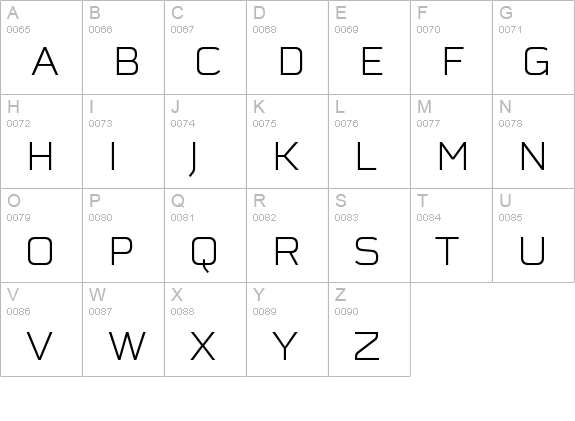
Schwager Sans Light Font Details
Schwager Sans Light is a refined, elegant variant in the Schwager typeface family \xE2\x80\x94 well suited to elegant body text, refined sub-headings, and luxury branding.
Schwager Sans Light is a modern and sleek sans-serif font that exudes sophistication and elegance. With its clean lines and balanced proportions, this typeface is perfect for a wide range of design projects, from branding to editorial design. The light weight of the font adds a touch of delicacy and subtlety to your text, making it easy on the eyes and highly readable. What sets Schwager Sans Light apart is not only its impeccable design, but also the fact that it is available for free. Yes, you read that right – this high-quality font can be downloaded at no cost from FontsMarket.com. Whether you're a professional designer looking to add a versatile font to your collection or a hobbyist in need of a stylish typeface for a personal project, Schwager Sans Light is the perfect choice. Embrace the beauty and versatility of this font today by downloading it for free and elevating your design work to new heights.